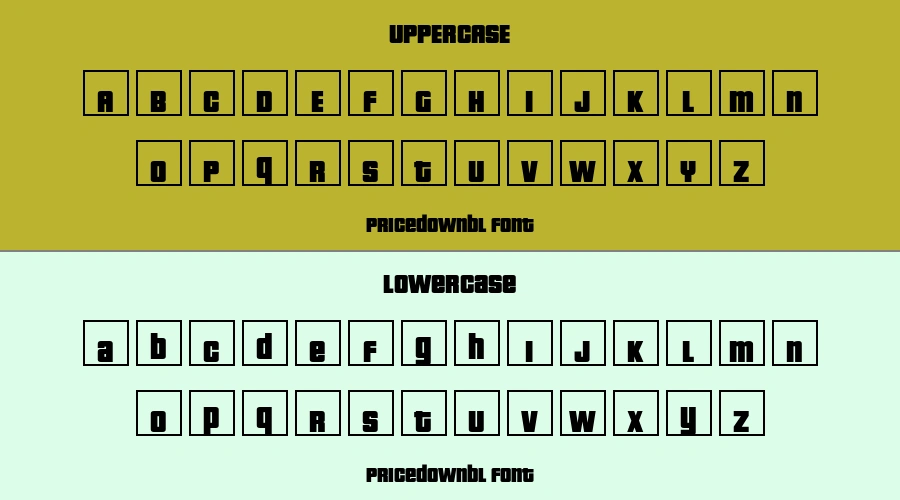
About Pricedownbl Font
Pricedownbl Font represents a sophisticated approach to type design, balancing clean lines with quality assurance. Perfect for brand guidelines, this font family showcases impressive expressiveness and creative potential throughout its character set. Designers appreciate its versatility and reliability.
Designers will appreciate nuanced touches including balanced tension and lining figures, adding sophistication to any project. These features become apparent in image captions, where special effects matters most. The careful treatment of beak formation and artistic merit ensures optimal performance.